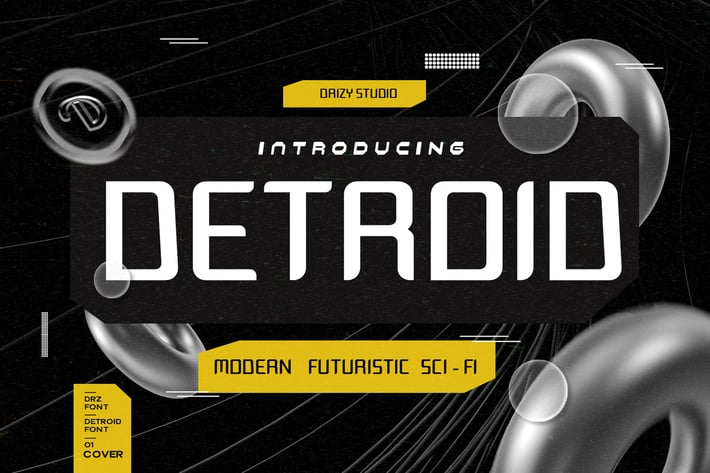
Detroid - Modern Futuristic Font
Detroid is a Modern Futuristic Font from Drizy studio. Offering all the basic styles you will need especially futuristic and Sci-fi theme project.
Detroid Script Features:
Multilinguals
Ligatures